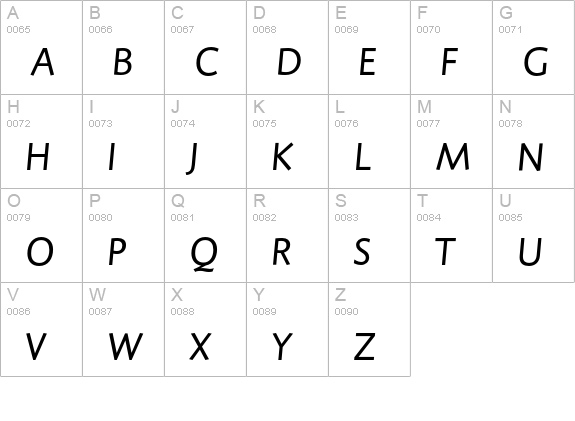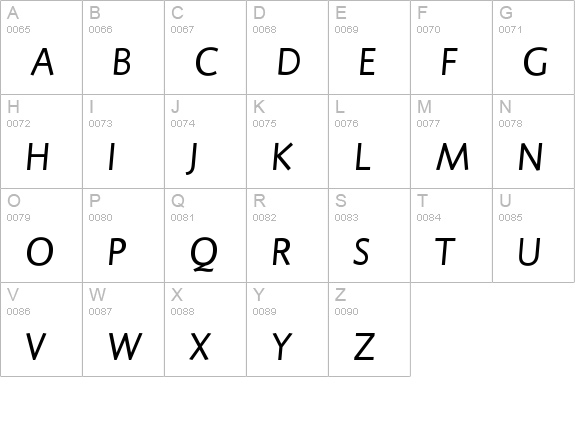
DTLCaspariT-Italic is a distinctive, italic variant in the DTLCaspariT typeface family \xE2\x80\x94 well suited to design and typography projects.
DTLCaspariT-Italic font is a stylish and elegant typeface that exudes sophistication and charm. Its sleek, italic design adds a touch of modernity to any project while maintaining a sense of classic appeal. The sleek and fluid lines of this font make it a versatile choice for a wide range of design applications, from branding to editorial design. What sets DTLCaspariT-Italic font apart is its unique blend of sophistication and accessibility. Whether you're working on a high-end fashion magazine or a trendy cafe menu, this font will elevate your design with its refined aesthetic. And the best part? DTLCaspariT-Italic font is available for free download at FontsMarket.com, making it accessible to designers of all levels. Don't miss out on the opportunity to add this stunning font to your collection today!